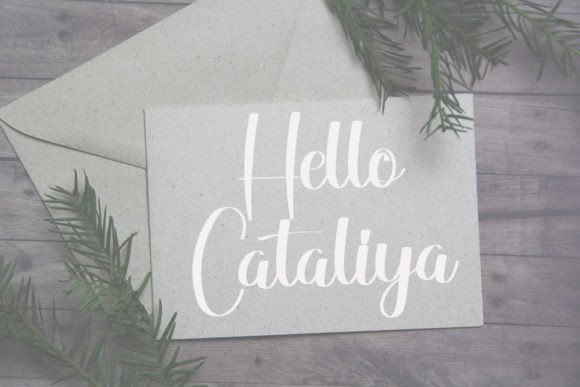
Simple Writing Font
Simple Writing is a dazzling script font. This font is neatly crafted and highly detailed. Whatever the topic, this font will be a wonderful asset to your font library, as it has the potential to enhance any creation.